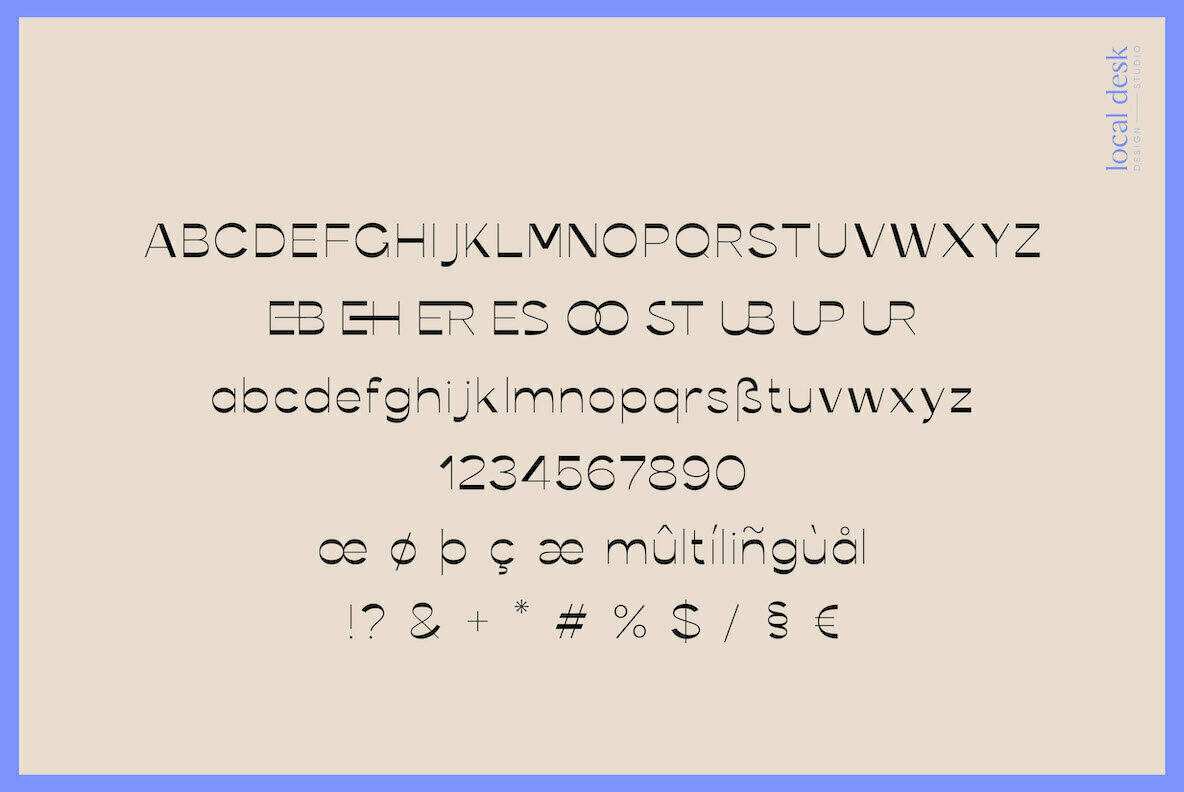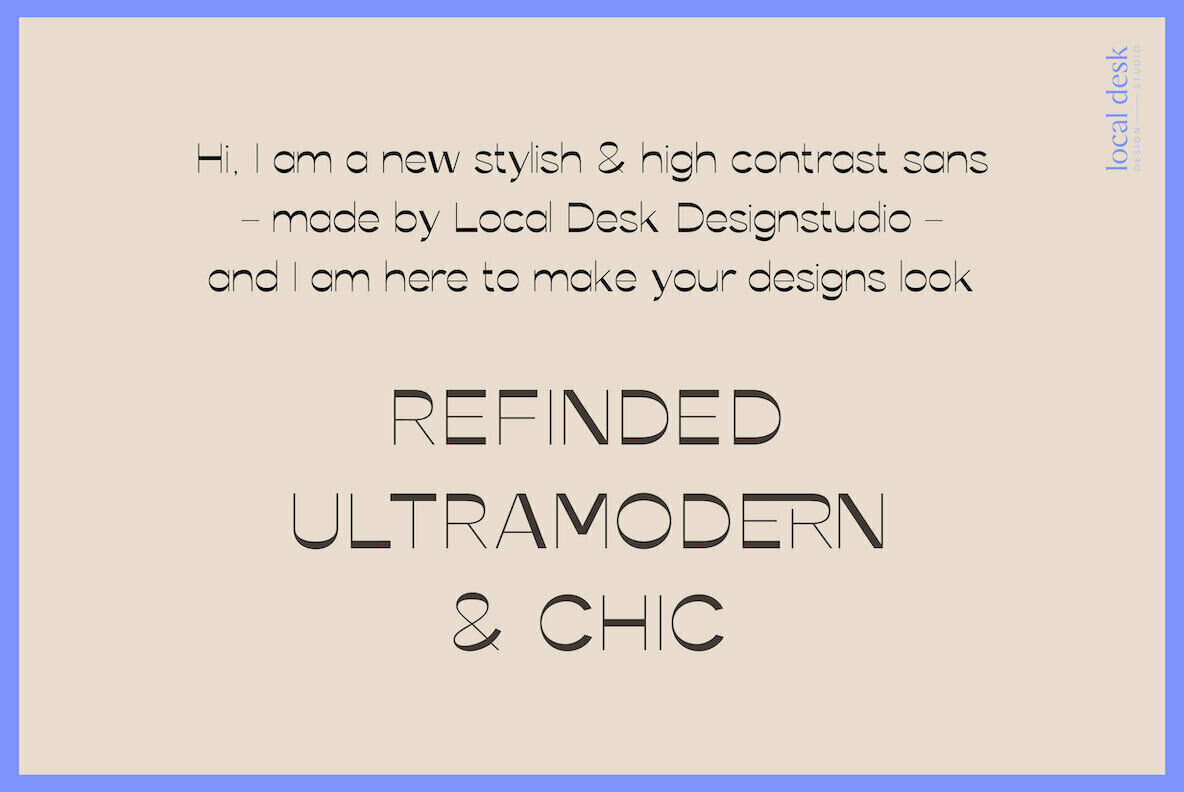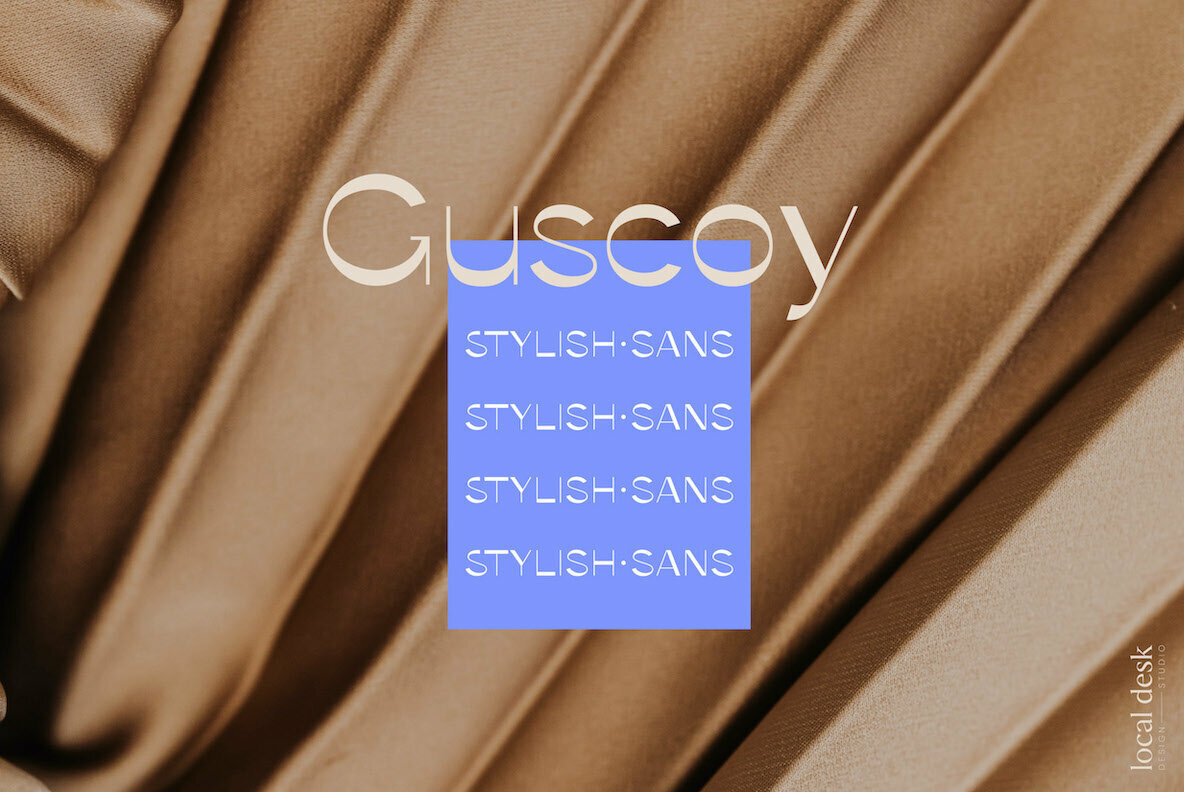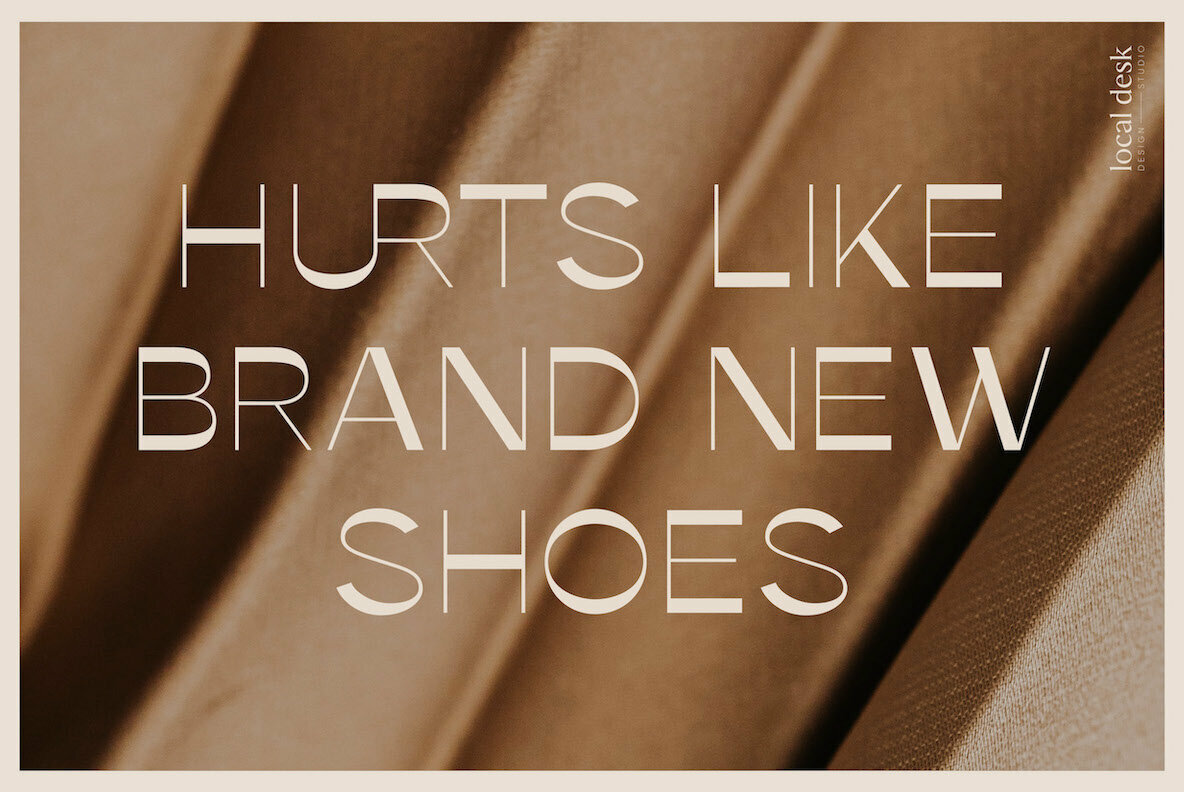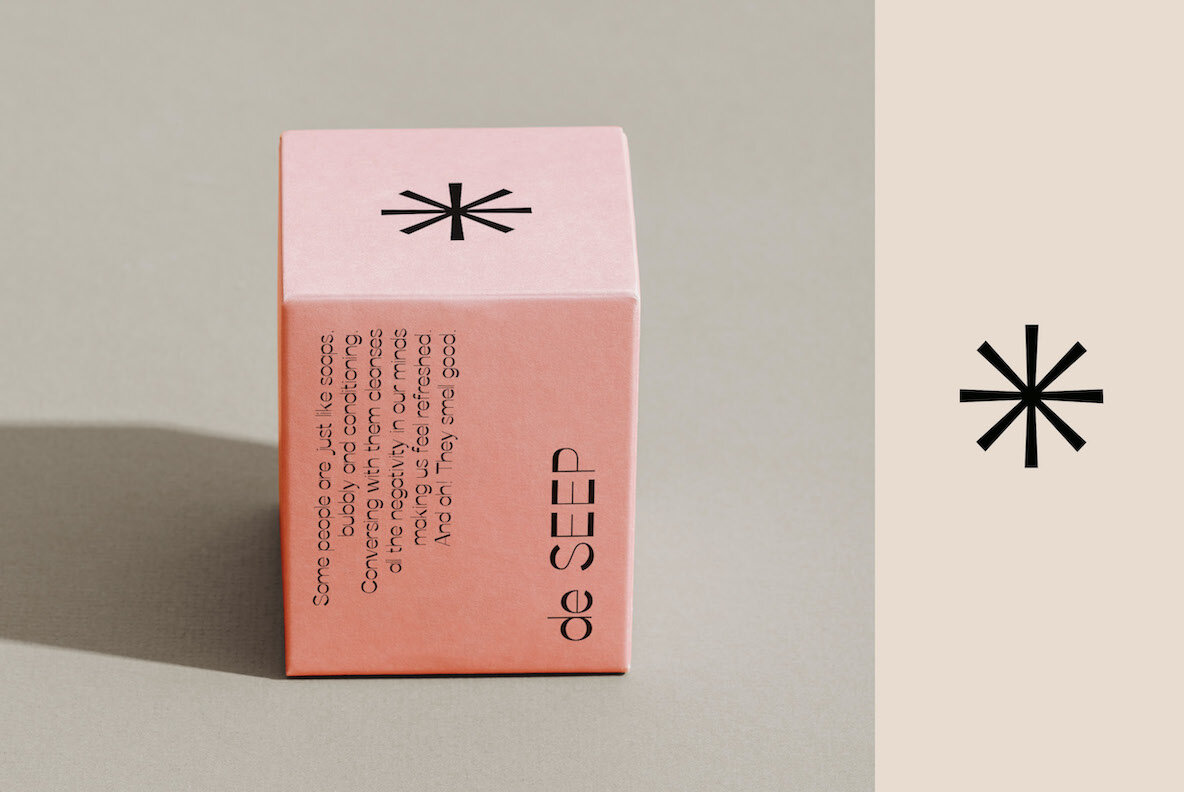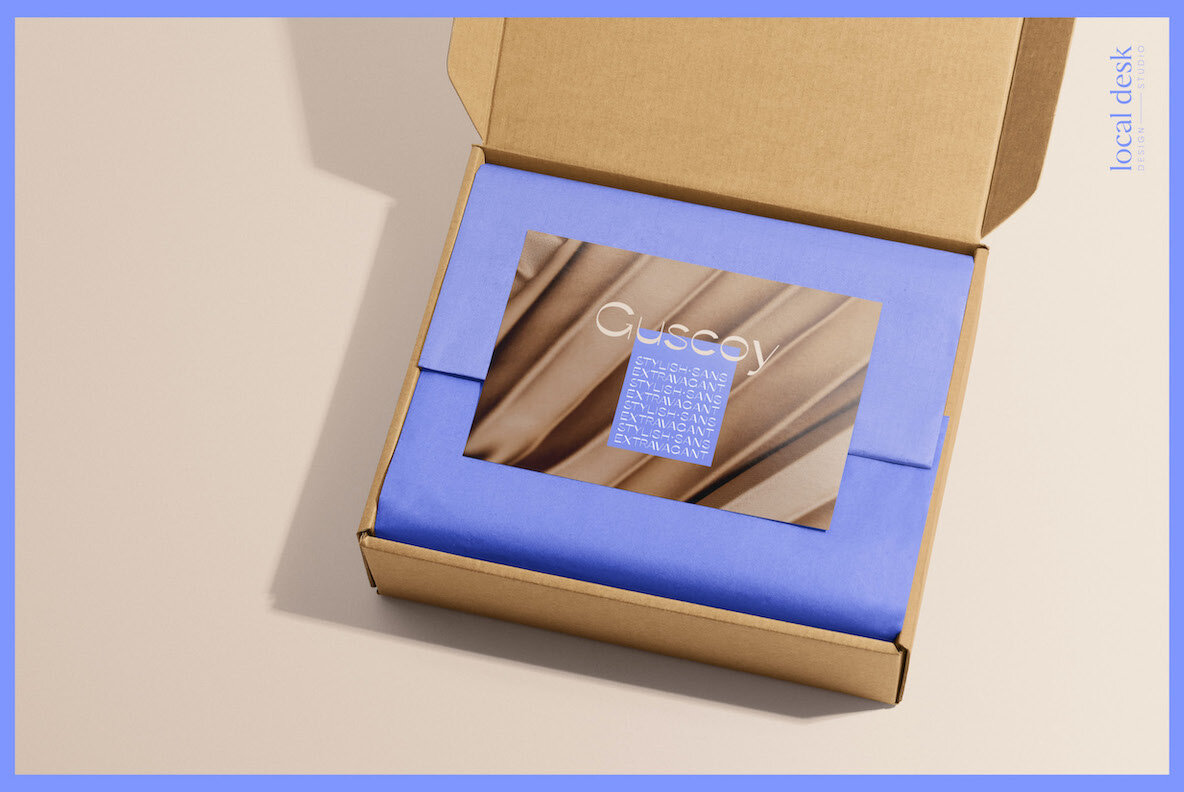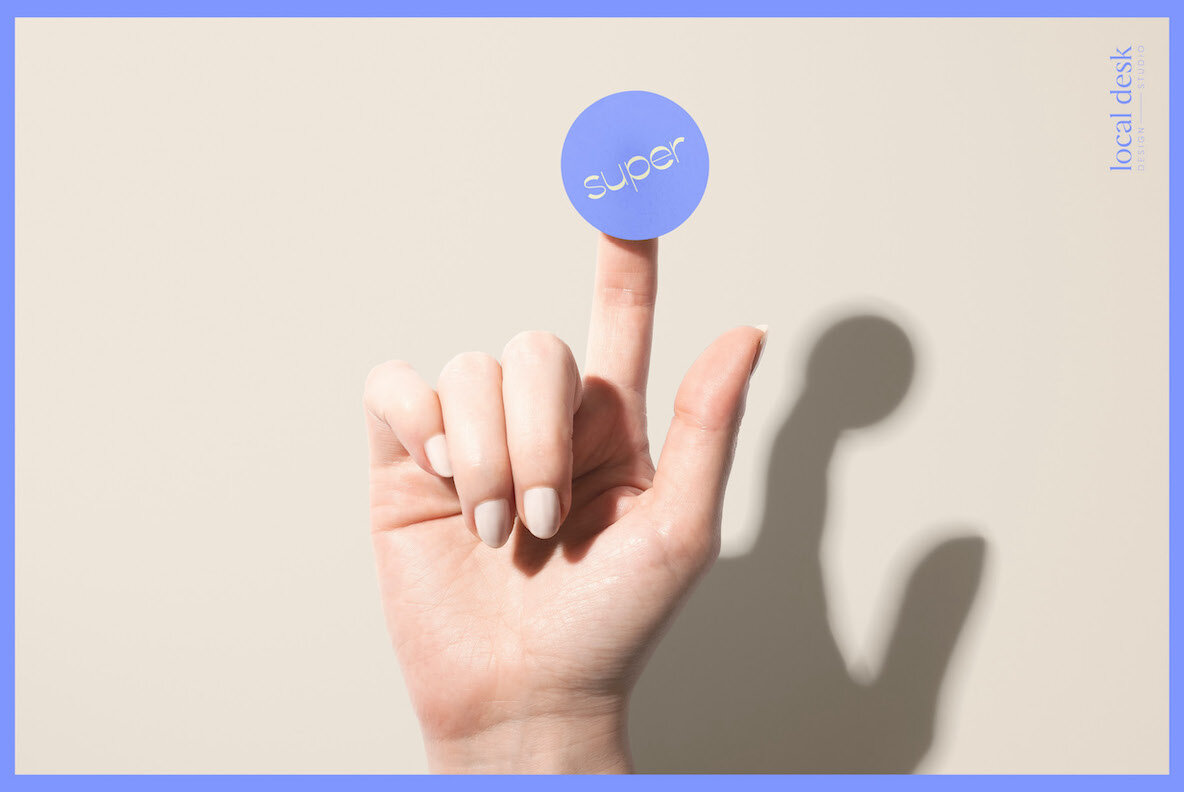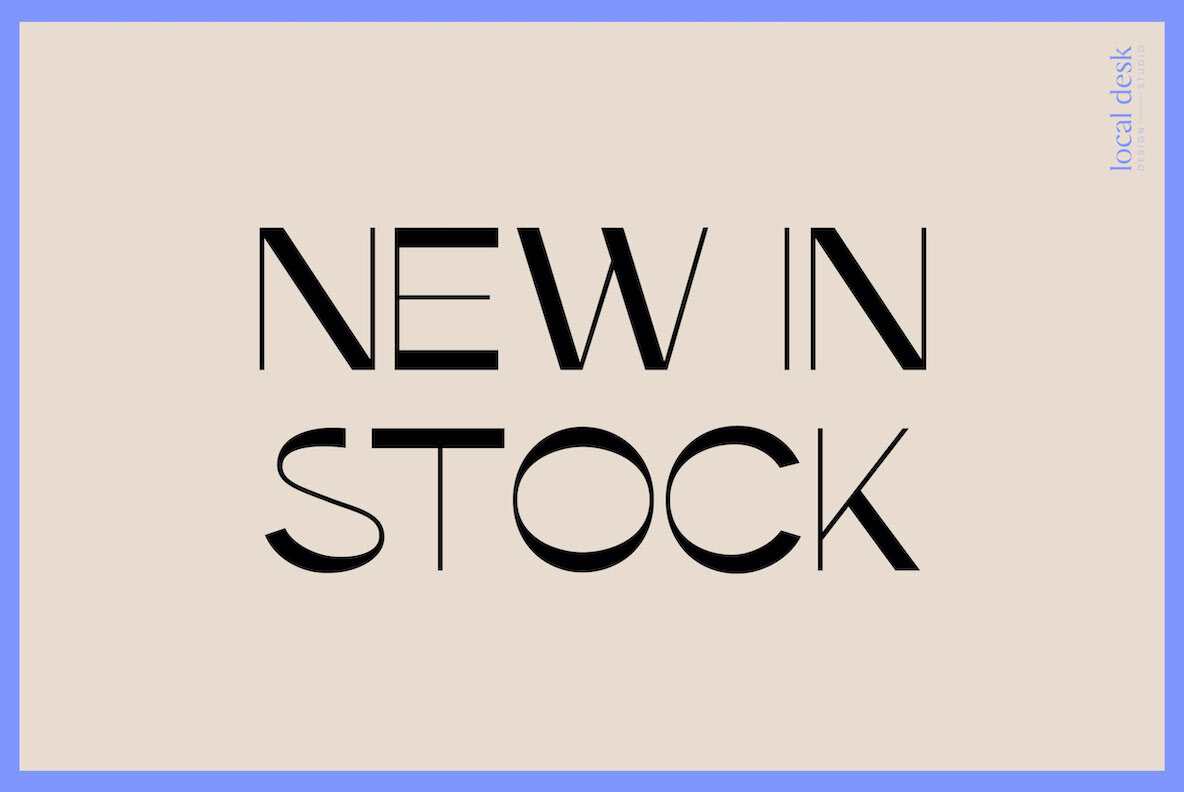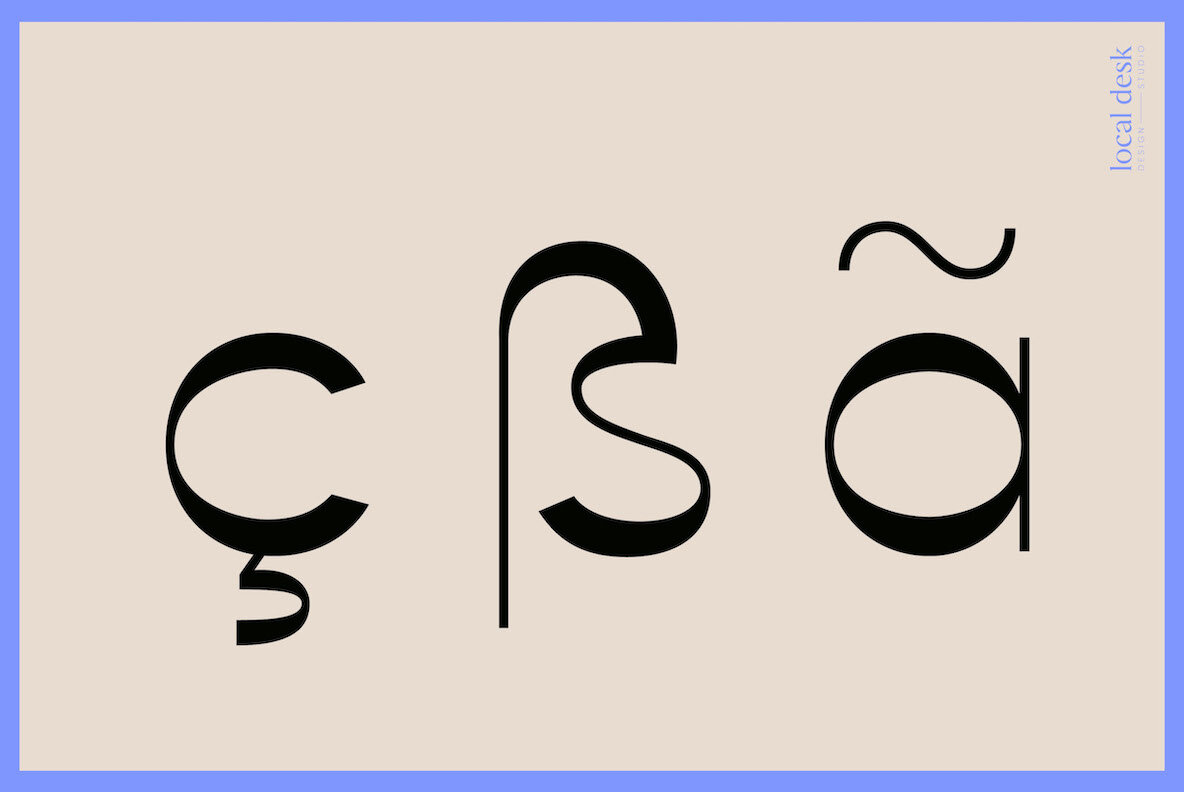
Guscoy Font
Guscoy Regular
Guscoy is a modern sans serif typeface that sets itself apart by reverse high contrast of thick and thin lines. Unique curves and clean lines create this memorable font with a minimalist & stylish vibe. Guscoy is perfectly suited for designing modern, high end brands, contemporary packaging, unique quotes, timeless websites and so much more!